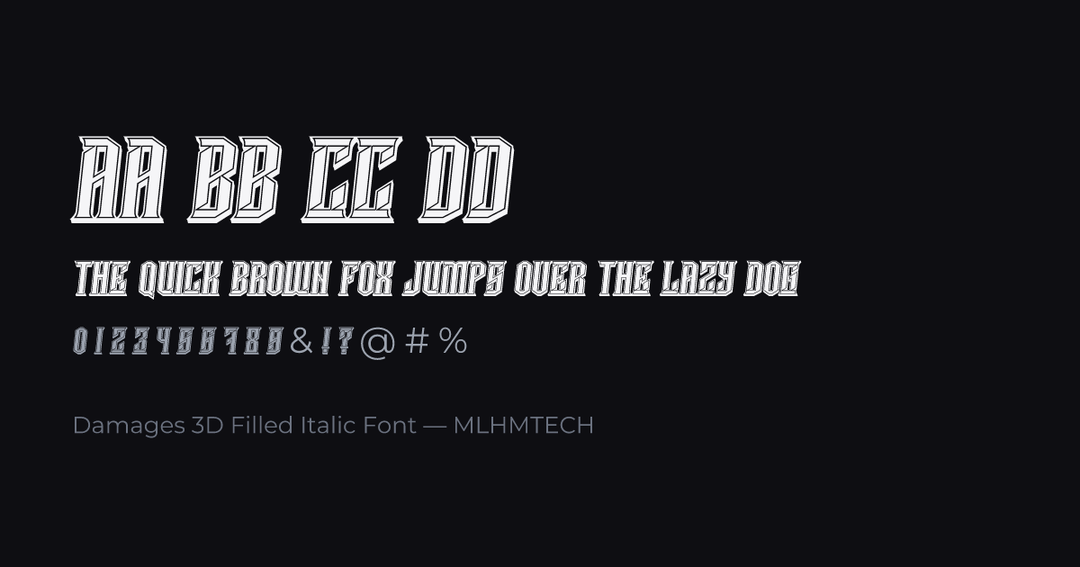
Damages 3D Filled Italic Font
Damages 3D Filled Italic is a bold, grunge-style font with a 3D effect. Ideal for impactful titles and designs.
Damages 3D Filled Italic brings a rugged, three-dimensional look to your text. The filled design and italic slant add depth and motion, making it perfect for action-packed posters, video titles, or branding that needs an edge.
This font is part of the Handpicked Fonts collection, ensuring high quality and uniqueness. Use it to create striking headlines, logos, or overlays that stand out. The grunge texture adds a raw, urban feel to any project.